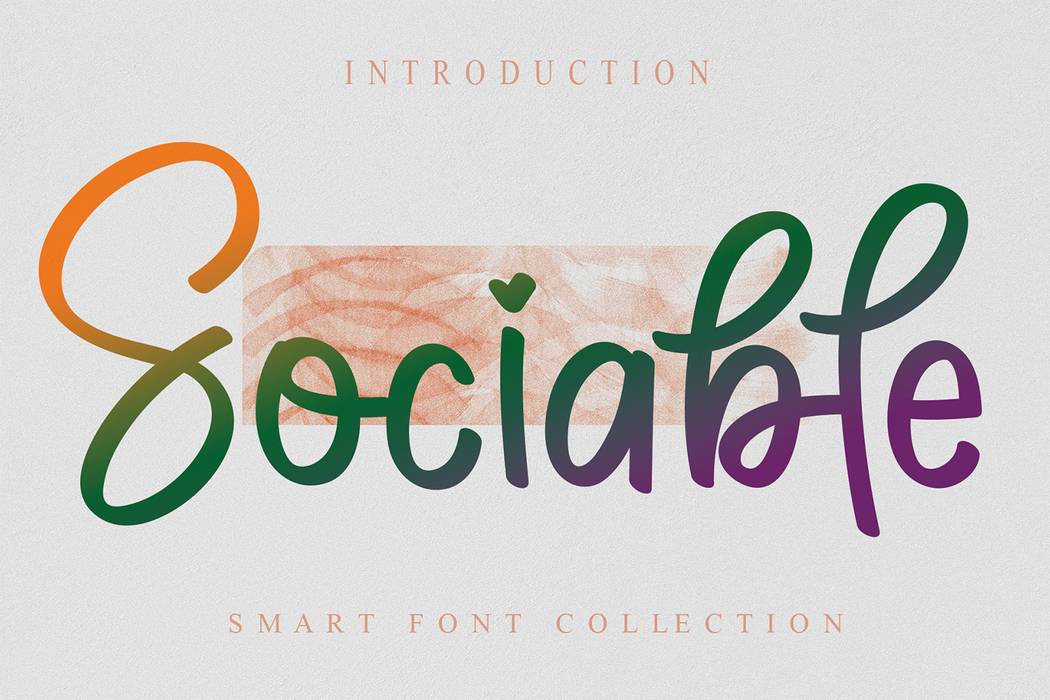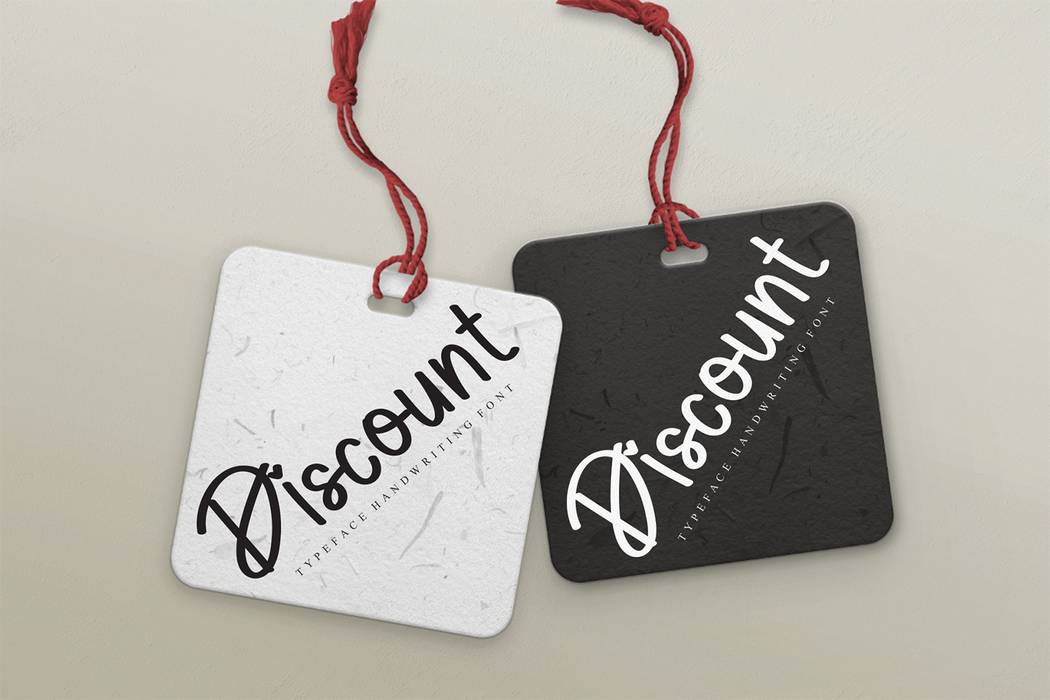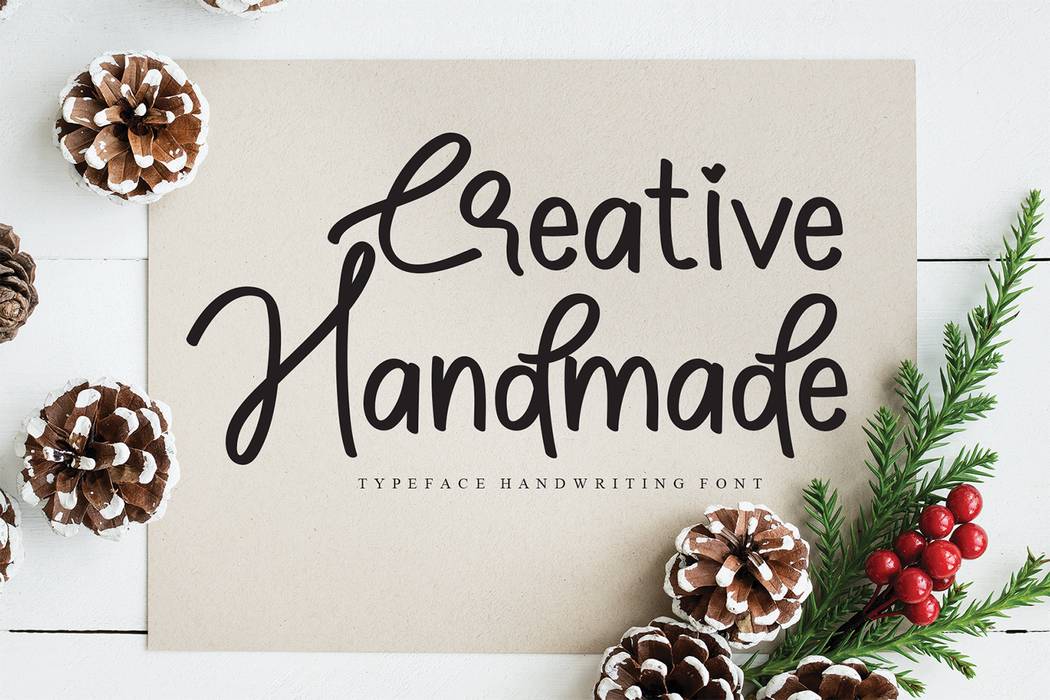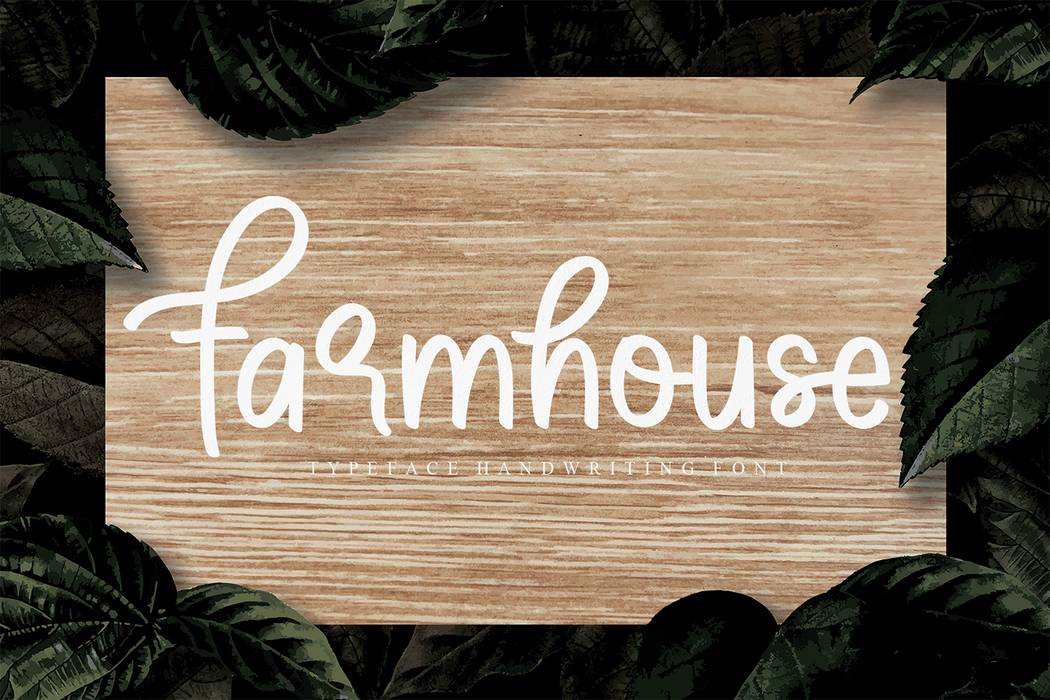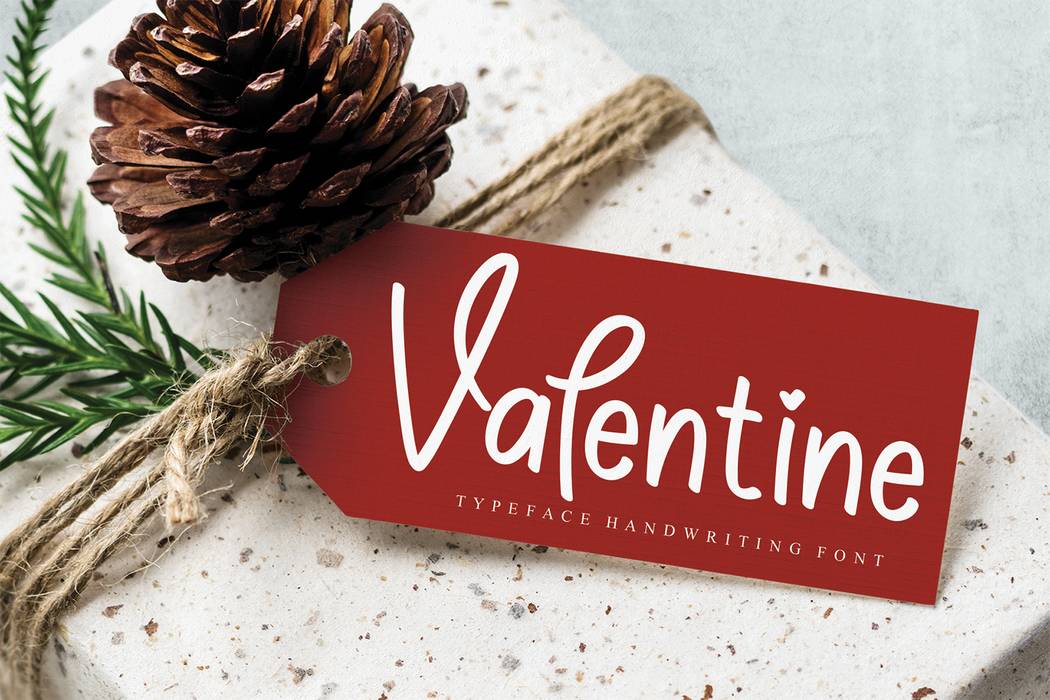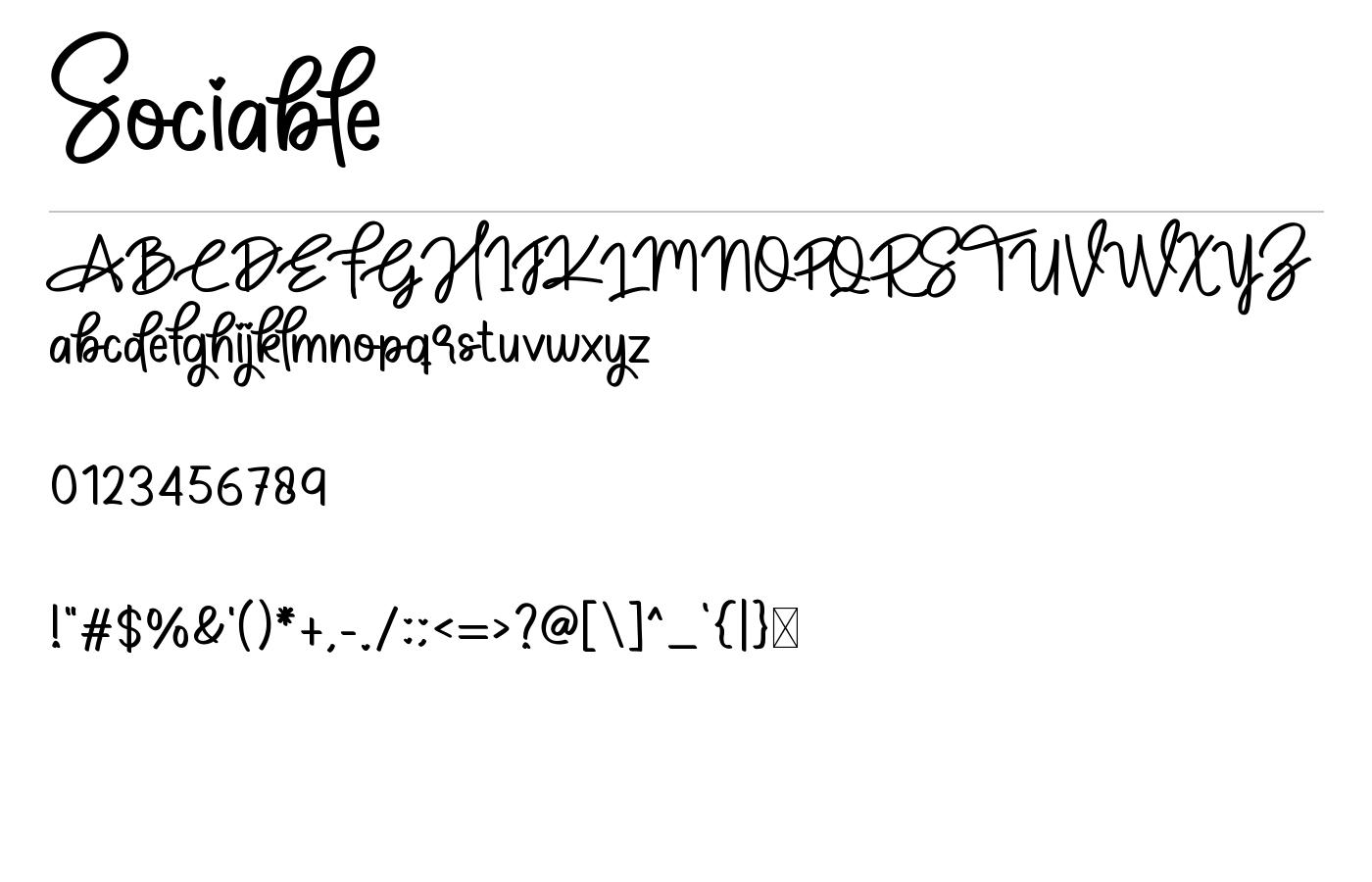
Sociable Font is a playful and casual handwritten script with a friendly vibe, featuring lively strokes and unique letterforms that add personality. Its medium weight and moderate contrast make it versatile for informal branding, social media graphics, and creative projects where an approachable, fun tone is desired. This font shines in contexts that benefit from a personal, crafted feel, bringing warmth and charm to headlines and logos.
Sociable Font
About Sociable Font